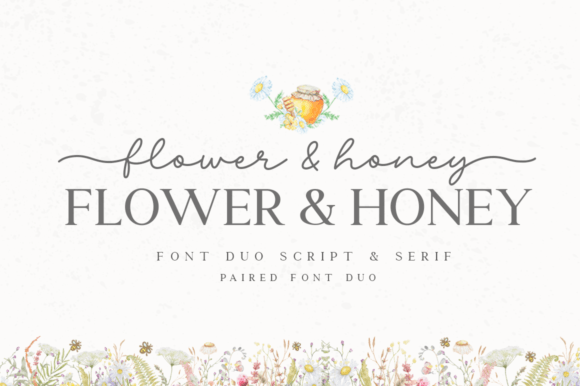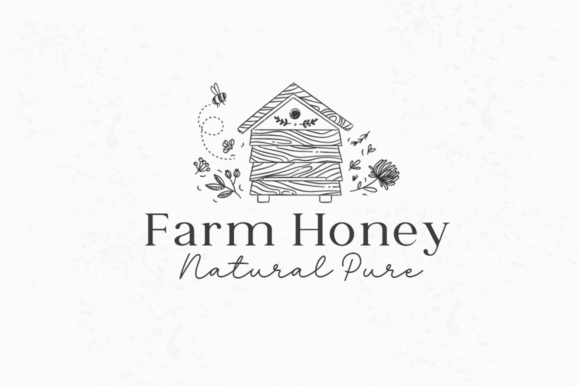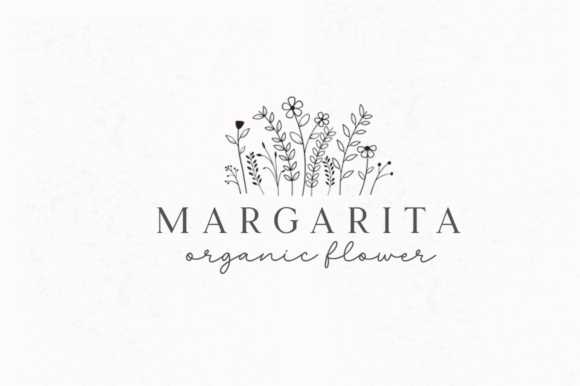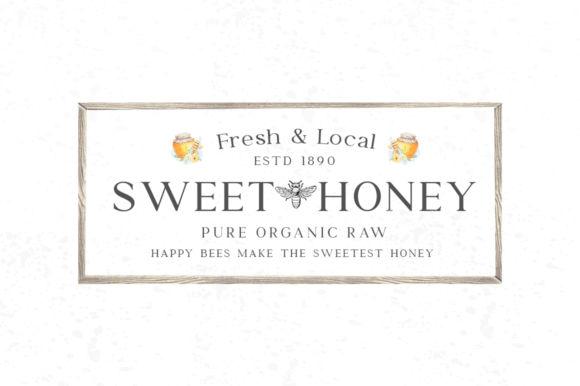
Flower & Honey Font
About the Flower & Honey Font
Explore the possibilities with Flower & Honey Font, a font that offers both beauty and functionality. Flower & Honey font paired designed to complement each other perfectly. Together or apart, these fonts are ideal for adding a stylish, cheerful touch to your crafts. Flower & Honey is a PUA code which means you can access all the glyphs and swashes easily!
Flower & Honey’s cheerful personality makes it ideal for branding projects needing a friendly and approachable feel, particularly logos, short headlines, and packaging for products targeting a younger or female demographic. It also works well on invitations and short-form marketing materials like social media posts. However, its decorative nature makes it unsuitable for body text or lengthy paragraphs; readability suffers at smaller sizes.
For optimal visual balance, pair Flower & Honey with a clean sans-serif like Open Sans for body copy or a geometric sans-serif like Futura for a more modern feel. Alternatively, a classic serif like Garamond can add a touch of sophistication, creating a lovely contrast between the ornate script and a more traditional typeface.
The font’s overall aesthetic is undeniably playful and optimistic, lending itself to projects that celebrate joy and lightheartedness. Avoid using it in contexts demanding seriousness or formality.
Flower & Honey Font Usage Examples
Flower & Honey Font Example